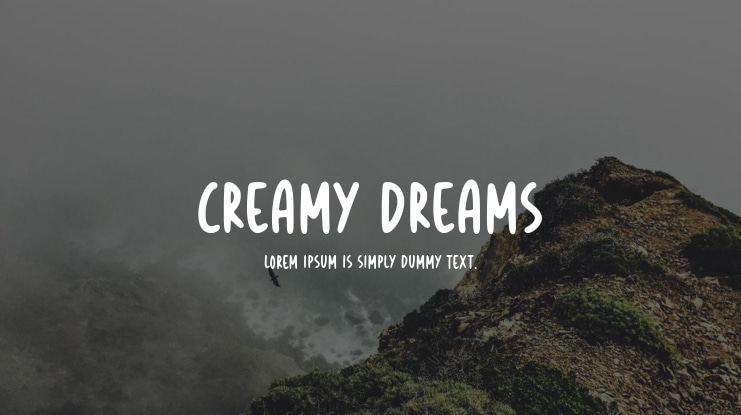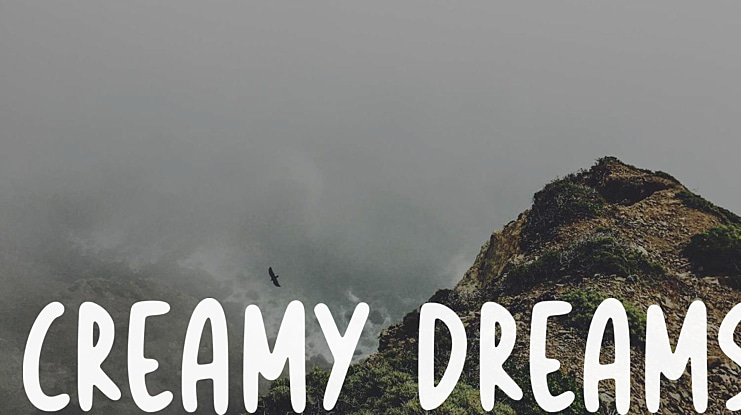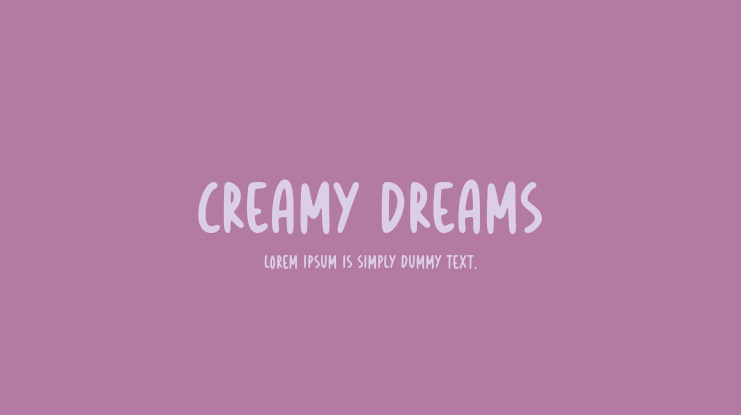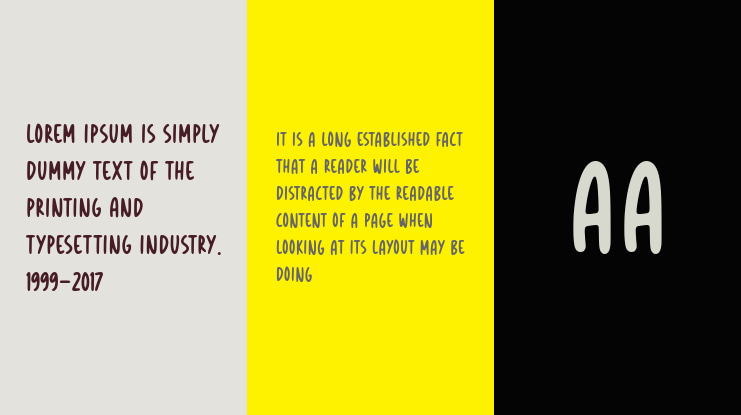
Creamy Dreams Font
Introducing Creamy Dreams Handwritten Font, a modern and fresh script font that will bring a warm and inviting feel to your business. This font is perfect for product packaging, branding projects, magazines, social media, weddings, or any other creative expression you can think of.
Creamy Dreams font preview